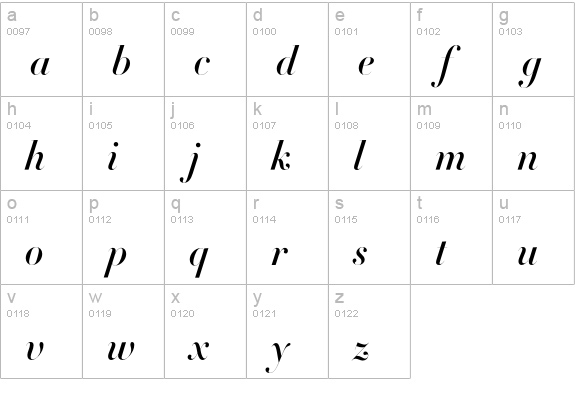
Didot-HTF-B96-Bold-Ital Font Details
Didot-HTF-B96-Bold-Ital is a strong, high-contrast variant in the Didot typeface family \xE2\x80\x94 well suited to headlines, attention-grabbing titles, and strong calls-to-action.
Didot-HTF-B96-Bold-Ital is a bold and elegant typeface that exudes sophistication and style. With its distinctive high-contrast strokes and graceful curves, this font is perfect for making a statement in your designs. The bold italic style adds a touch of drama and flair, making it ideal for headlines, titles, and other eye-catching text. This font is available for free download at FontsMarket.com, where you can easily access and use it for both personal and commercial projects. Whether you're designing a poster, logo, or any other creative project, Didot-HTF-B96-Bold-Ital will add a touch of elegance and class to your work. Don't miss out on this beautiful font that is sure to elevate your designs to the next level.